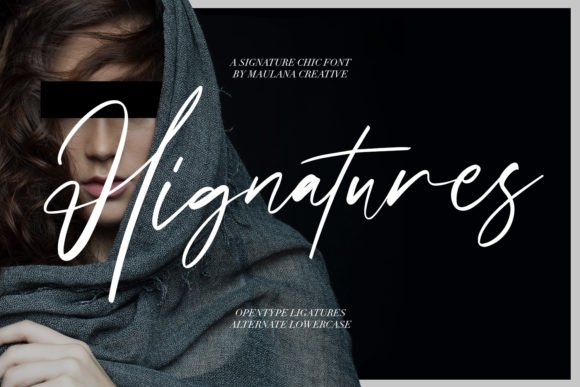
The Perfect Font to Bring Your Creativity to Life
Do you remember that moment when you finally nailed the perfect design for your social media post, and it all came together in a burst of creativity? You know, the one where you feel like a true artist, and your vision is finally realized? For designers, those moments are what make it all worth it.
When you’re looking to add a personal touch to your designs, that’s where Hignatures Font comes in – a beautifully crafted handwritten font inspired by classic typography. Whether you’re working on a project for Instagram or a DIY craft, this versatile font will help you turn your ideas into stunning pieces of art.
With Hignatures Font, you’ll have the freedom to express your unique style and bring your creative vision to life. Its unique blend of classic and modern elements makes it a valuable asset for any designer looking to elevate their work.
Hignatures Font Key Features
- Font Family: Hignatures Font offers a unique, modern font family with various styles and weights, ideal for creative projects.
- Unique Characteristics: The font features intricate details, unique letterforms, and subtle texture, giving it a distinctive and eye-catching appearance.
Hignatures Font Review
Overall, I’m a big fan of the Hignatures font. It has a unique charm that sets it apart from other fonts. ✨
One of the things that stands out about Hignatures is its versatility. It can be used for a wide range of projects, from formal documents to creative designs. The font is highly customizable, allowing designers to adjust the weight, width, and spacing to suit their needs. ✨
- Unique and distinctive design
- Versatile and suitable for a wide range of projects
- Easy to read and use
However, like any font, Hignatures has its limitations. ⚠️
- Not as legible in small text sizes
- May require additional styling to achieve desired look
- Not suitable for all types of content (e.g. body text)
Despite its limitations, I would highly recommend Hignatures font to designers looking for a unique and versatile option. It’s a great choice for projects where you want to stand out and make a statement.
Getting the Most Out of Hignatures Font
For best results, use Hignatures Font in conjunction with bold or italic styles to add emphasis and visual interest.
Experiment with different font sizes and colors to create a cohesive and engaging design.
Hignatures Font is ideal for:
- Infographics and data visualizations Alternatives to Hignatures Font
Great Vibes Font is a modern, elegant script font ideal for designs that require a touch of sophistication and playfulness. It’s perfect for branding, invitations, and social media graphics.
Compared to Hignatures Font, Great Vibes Font has a more refined and polished look, making it suitable for high-end designs. However, Hignatures Font has a more dynamic and energetic feel, making it better suited for creative and artistic projects.
Pacifico Font is a beautiful, cursive font inspired by the ocean. It’s great for designs that need a relaxed and beachy vibe, such as travel brochures, restaurant menus, and event invitations.